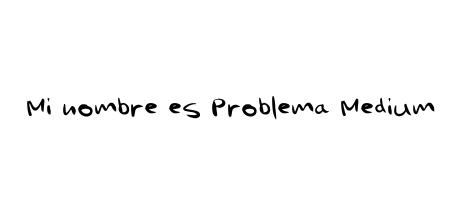
Mi nombre es Problema
Mi nombre es Problema Medium displays a casual, handwritten aesthetic. The letters are slightly uneven in size and spacing, giving it a playful, almost childlike quality. There's a gentle curve to many of the strokes, lending a friendly and approachable feel. The overall style is informal and expressive, avoiding any sense of rigidity.